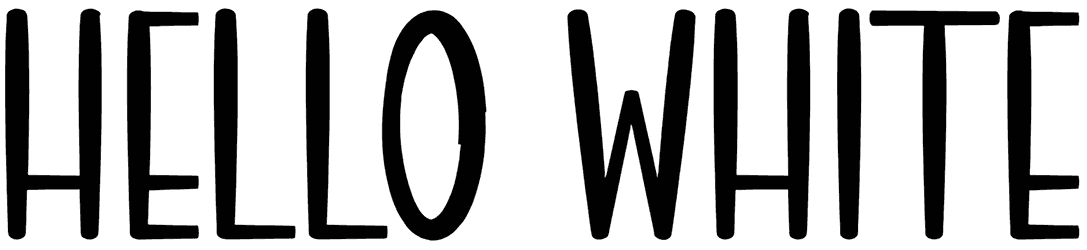
Hello White Font
The first thing that happens after looking at the Hello White font is a smile on your lips. This font has an incredible power to make you feel energized and motivated to pay more attention. Therefore, this condensed font…
The first thing that happens after looking at the Hello White font is a smile on your lips. This font has an incredible power to make you feel energized and motivated to pay more attention.
Therefore, this condensed font, with its unique proportions of lines and curves, is helpful in various situations when the goal is to entertain your audience. َAlthough this font does not support lowercase letters, you will never forget a phrase written in the Hello White font.